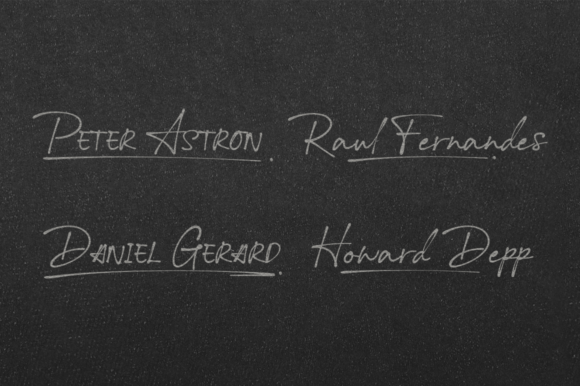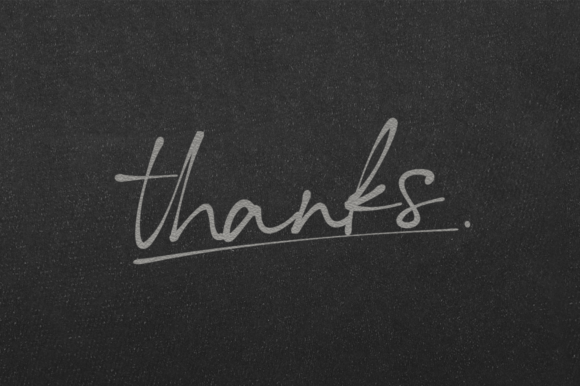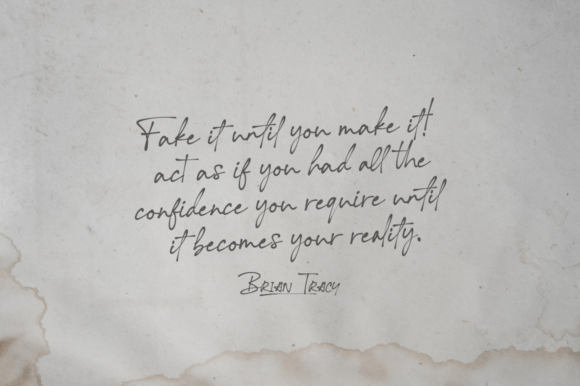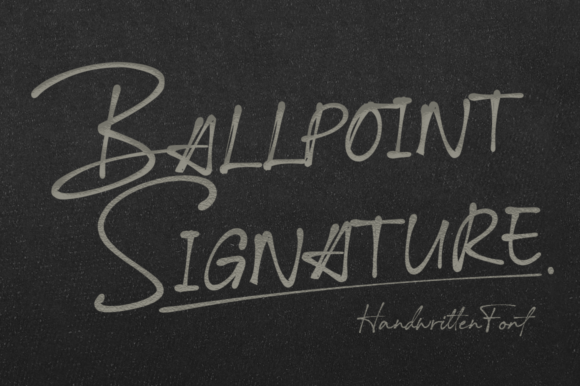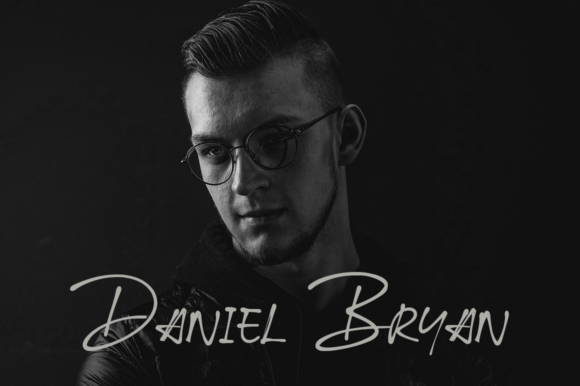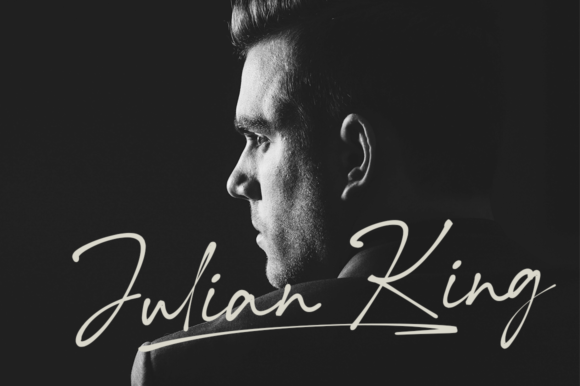
Unlock the Magic of Handwritten Fonts
Have you ever been working on a design project and suddenly, the perfect font just slips away from you? You envision a beautiful, handwritten signature that perfectly captures the essence of your brand, but you can’t quite find the right tool to bring it to life. That’s where the Ballpoint Signature Font comes in – a masterpiece of handwritten typography that’s sure to become your go-to choice for creating stunning designs.
This exquisite font is designed to provide you with a wide range of creative possibilities, from smooth lines to gorgeous glyphs and stunning alternates. With its PUA encoding, you can easily access all of the glyphs and swashes, making it a valuable asset for any designer looking to add a personal touch to their work. Whether you’re a seasoned pro or just starting out, the Ballpoint Signature Font is sure to inspire your creativity and help you take your designs to the next level.
Ballpoint Signature Font Key Features
- Unique Hand-Drawn Style: The Ballpoint Signature Font features a distinctive hand-drawn style that mimics the look of a handwritten signature.
- Character Set: Includes a wide range of characters, including uppercase and lowercase letters, numbers, punctuation marks, and special characters.
Designer Review: Ballpoint Signature Font
I recently had the chance to play around with the Ballpoint Signature Font, and here’s my honest take on it.
- The font has a unique and distinctive look that’s perfect for adding a personal touch to documents and digital designs.
- The high-quality vector graphics ensure crisp and clear rendering, even at large sizes.
- The font is highly customizable, with a wide range of options for adjusting the style and layout.
- The font may not be the best choice for body text, as it can be quite ornate and distracting.
- The lack of language support for certain languages may be a limitation for designers working on global projects.
- The font’s complex structure can make it difficult to work with for beginners or those without extensive design experience.
Overall, the Ballpoint Signature Font is a solid choice for designers looking to add a touch of elegance and sophistication to their work. While it may have some limitations, its unique look and high-quality design make it a great option for projects that require a bit of flair.
Use the Ballpoint Signature Font to add a personal touch to your designs.
Experiment with different font sizes and colors to create a unique look.
Use the font in combination with other design elements to create a cohesive brand identity.
Use the Ballpoint Signature Font for:
Personal branding and identity design.
Business cards and stationery.
Signatures and letterheads.
Marketing materials and promotional products.
Alternatives to Ballpoint Signature Font
Great Vibes is a modern, elegant script font that works well for creative projects, invitations, and branding materials. It’s a great alternative to Ballpoint Signature Font for those looking for a more sophisticated and high-end feel.
Comparison: While Ballpoint Signature Font has a casual, handwritten feel, Great Vibes is more refined and polished. Great Vibes is suitable for formal and professional projects, whereas Ballpoint Signature Font is better suited for informal and creative projects.
Carolyna Pro is a beautiful, elegant script font that works well for high-end branding, luxury packaging, and creative projects. It’s a great alternative to Ballpoint Signature Font for those looking for a more luxurious and sophisticated feel.
Comparison: While Ballpoint Signature Font has a casual, handwritten feel, Carolyna Pro is more refined and luxurious. Carolyna Pro is suitable for high-end projects, whereas Ballpoint Signature Font is better suited for informal and creative projects.